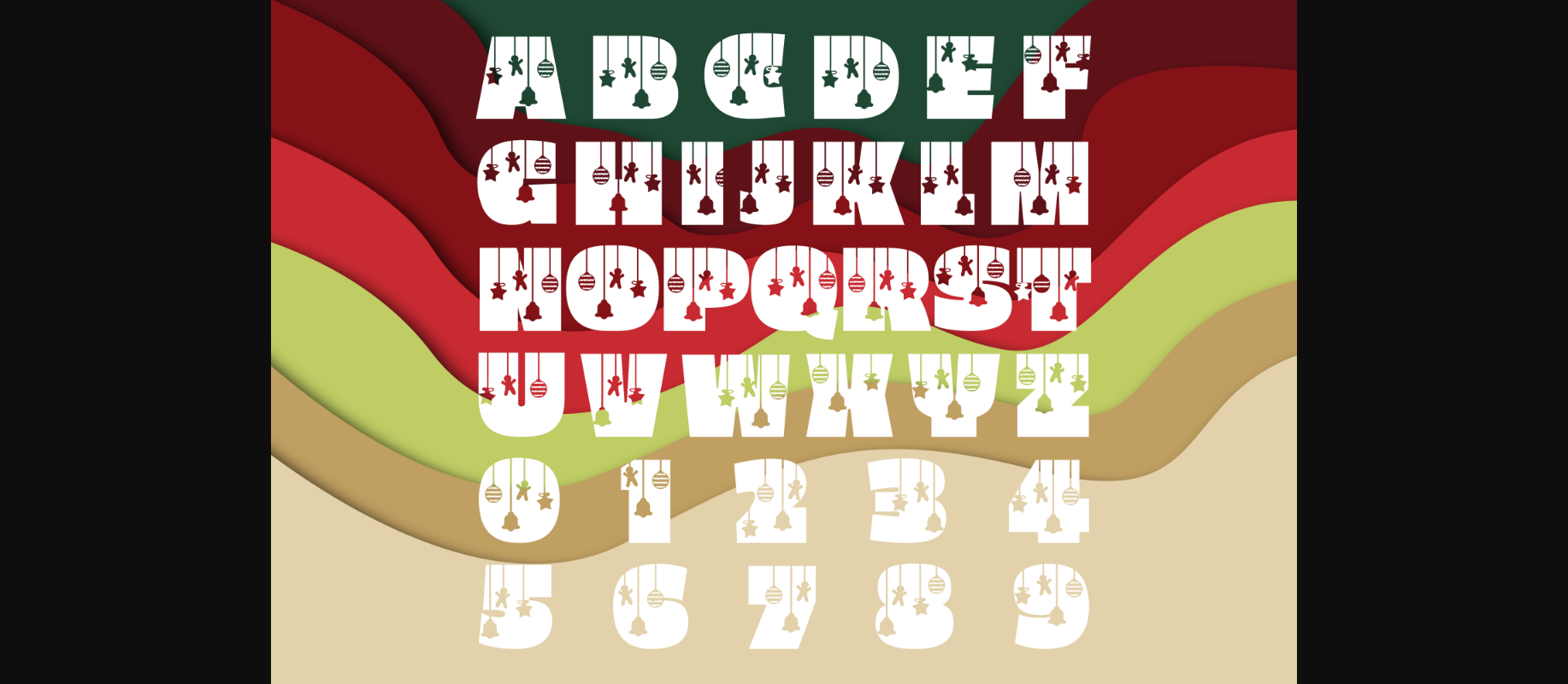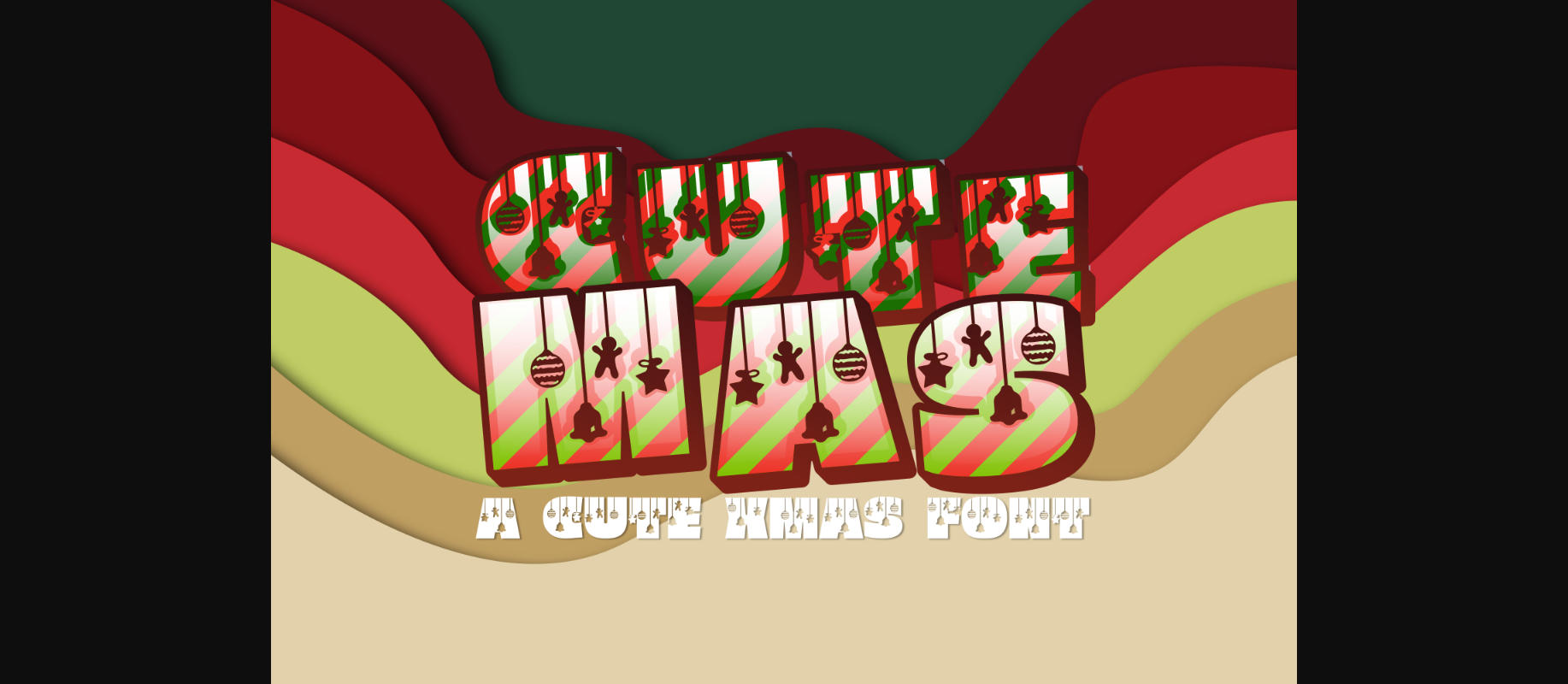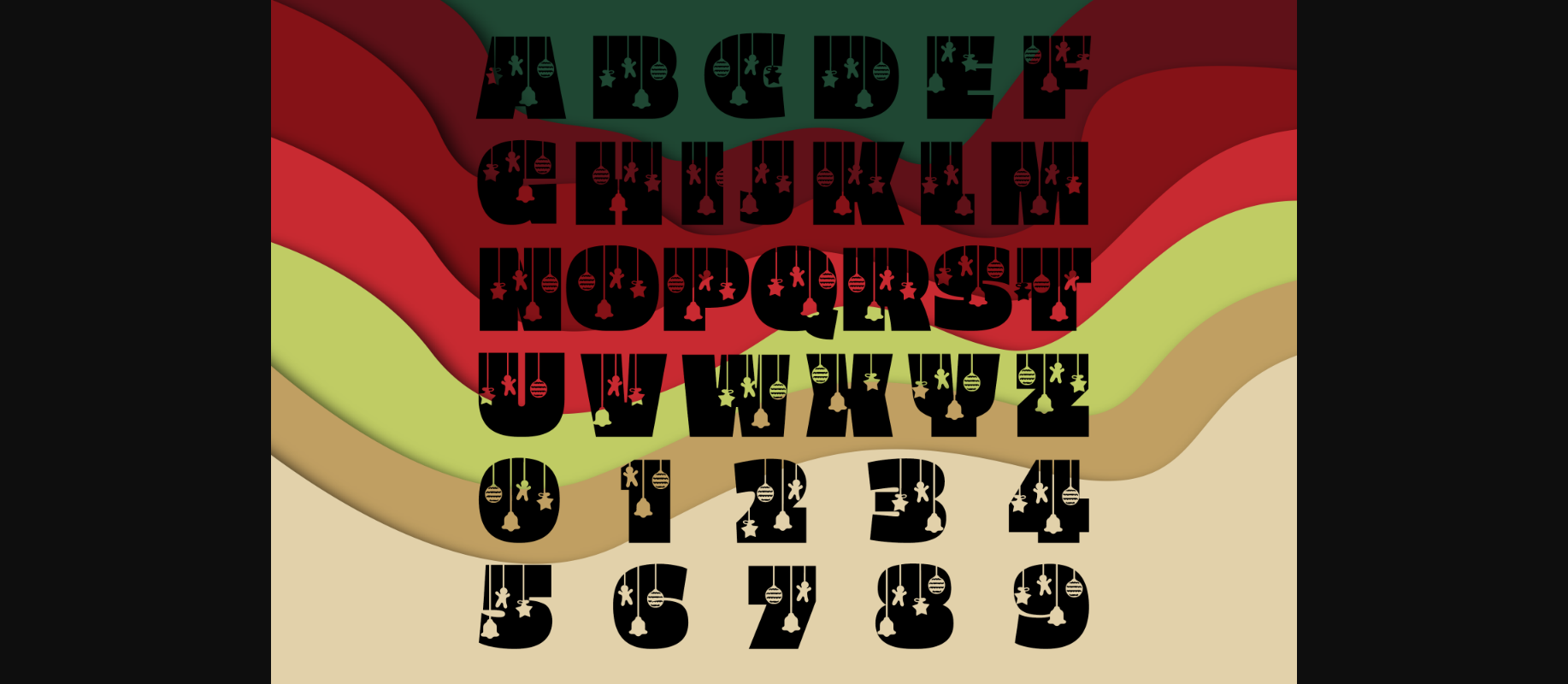
About Cutemas Font
`Cutemas is a festive and cool decorative font. Whether you use it for cartoon-related designs, children games, or just any creation that requires a lovely touch, this font will be an amazing choice.